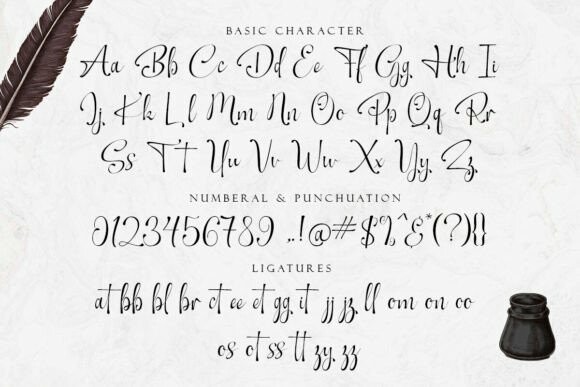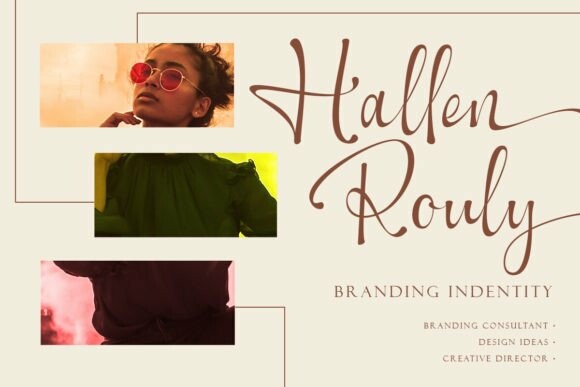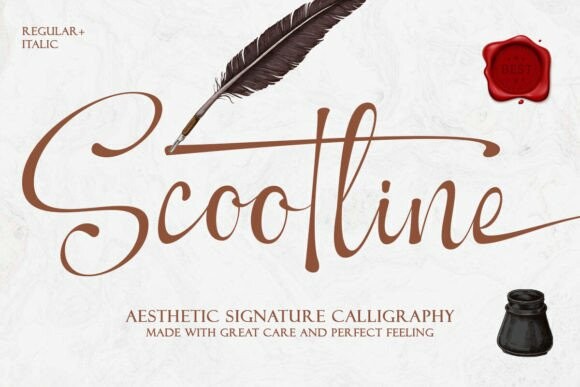
Scootline Font
Designer: Romie Creative
Scootline Font is a stylish modern calligraphy font with casual chic flair. It is perfect for branding, wedding invites and cards, signature and maybe for red wine label. Scootline Signature includes full set of gorgeous uppercase and lowercase letters, numerals, a large range of punctuation and variation ligatures. All lowercase letters include beginning and ending swashes, giving realistic hand-lettered style.